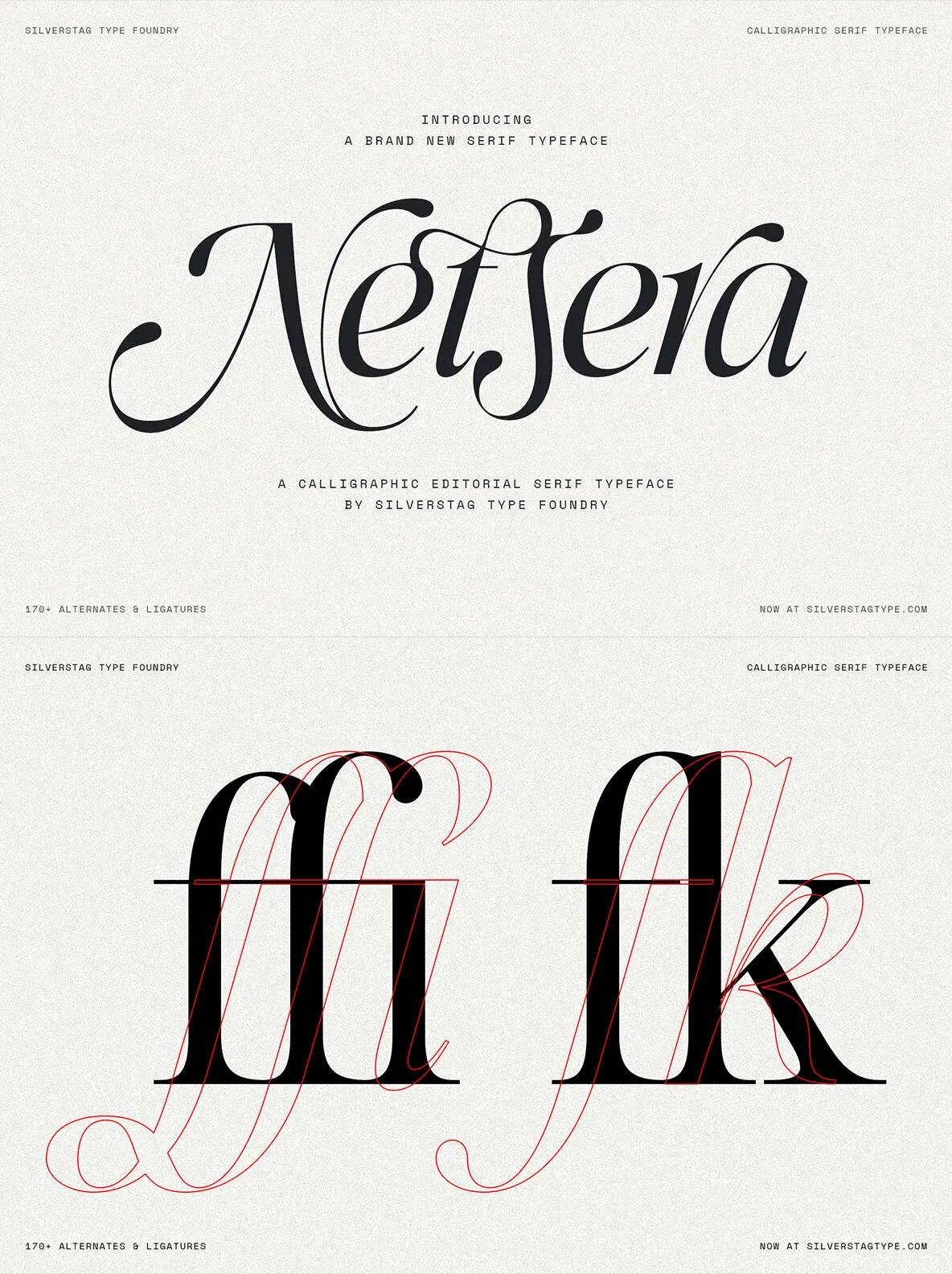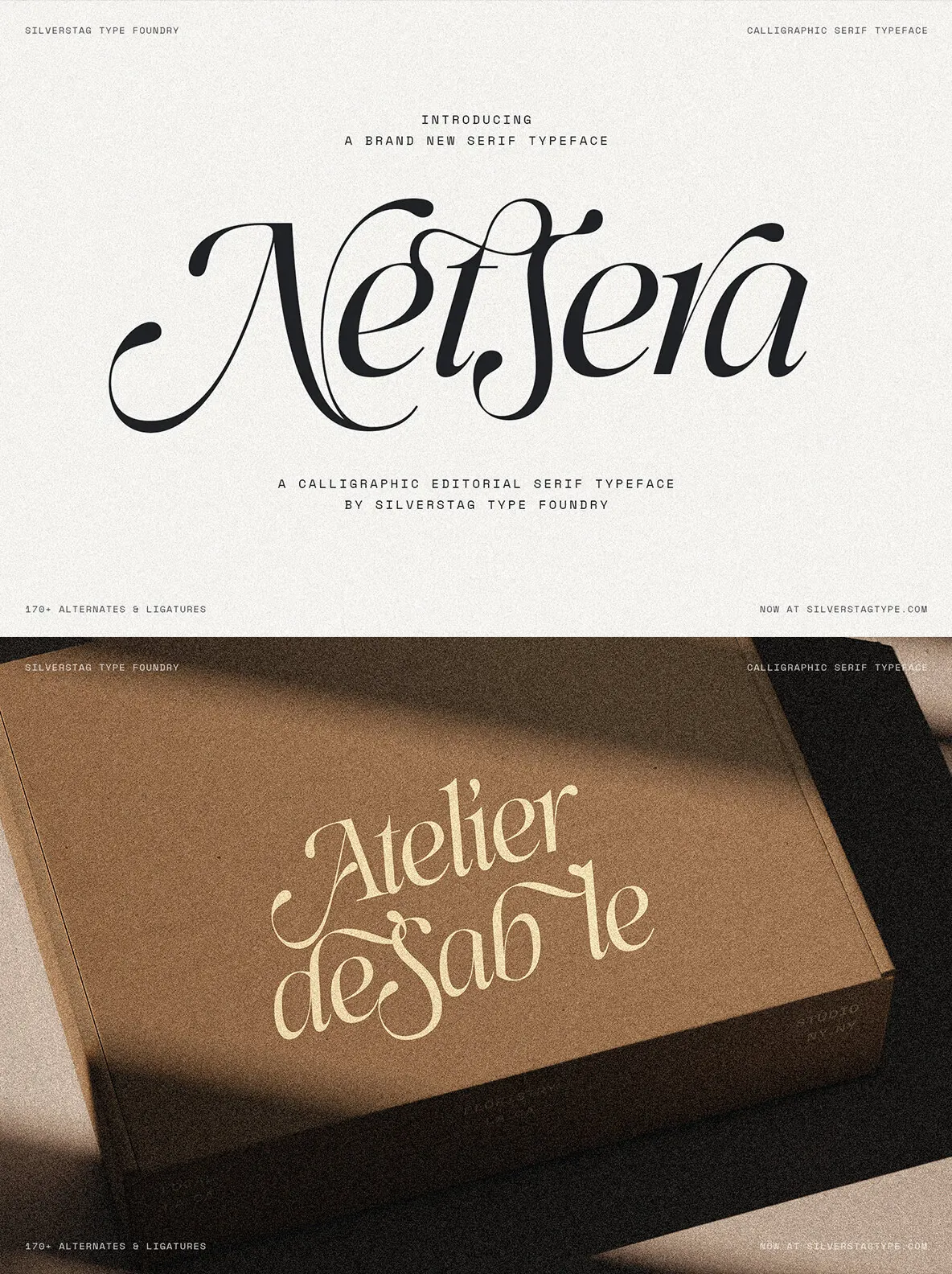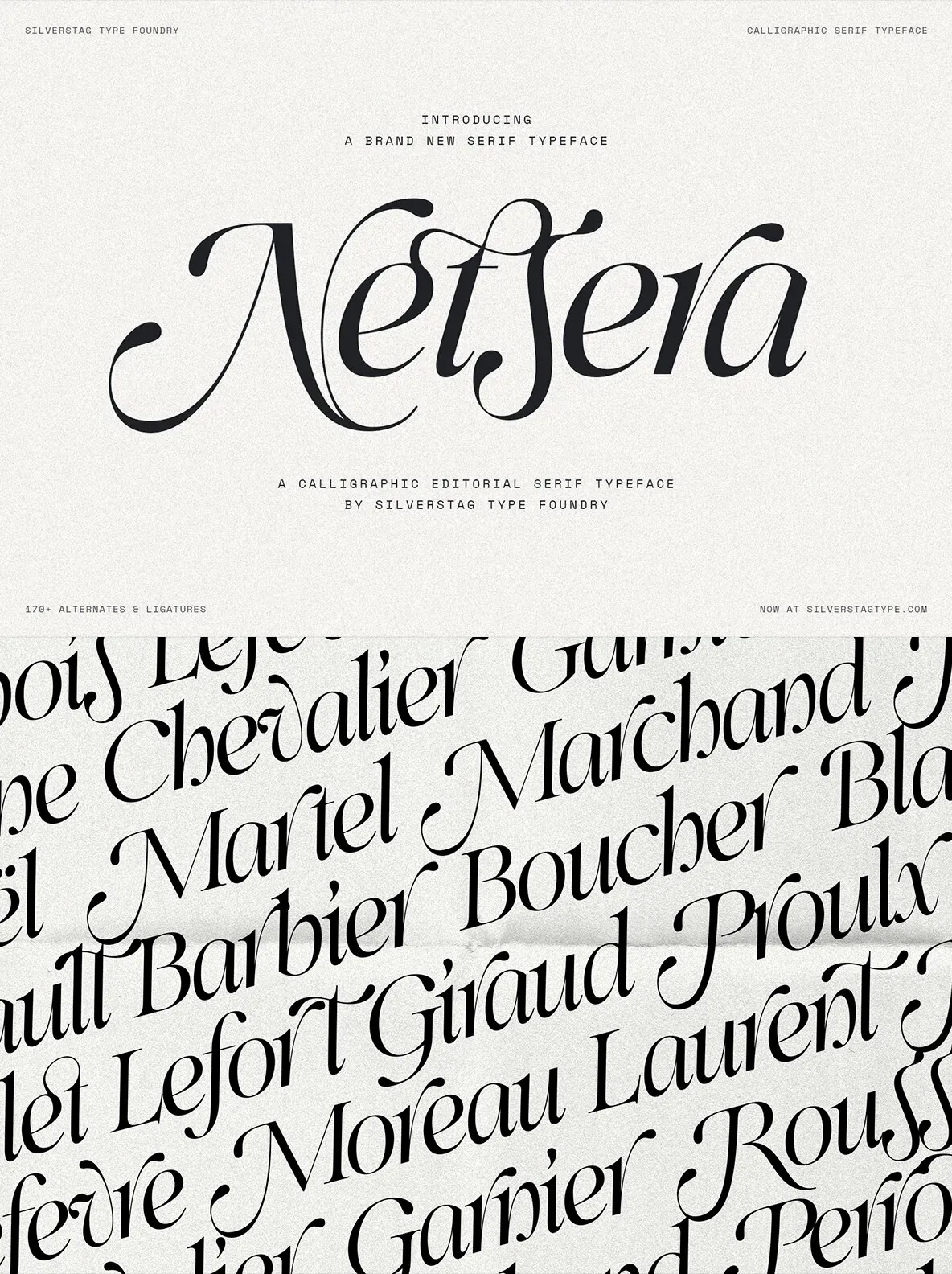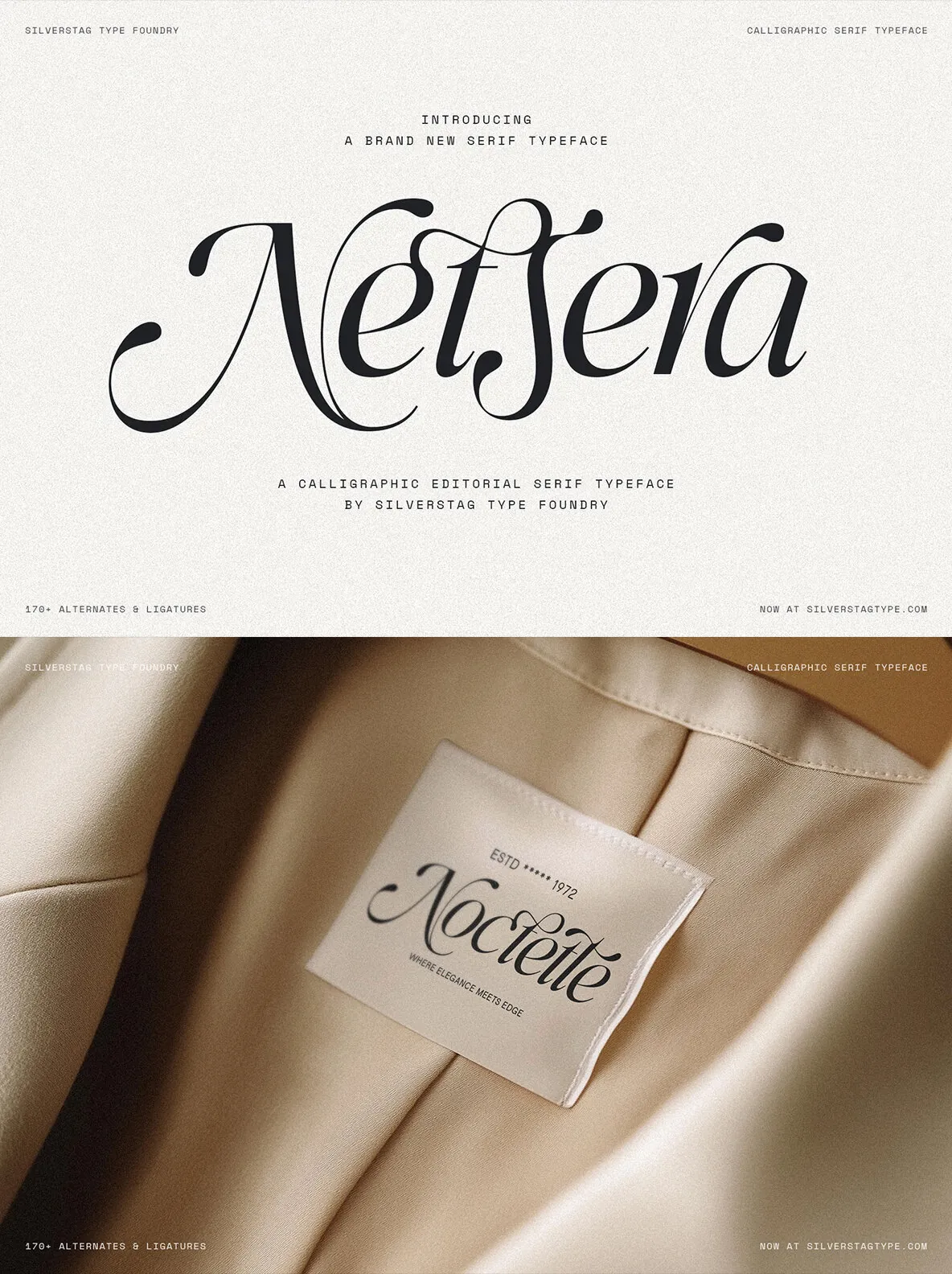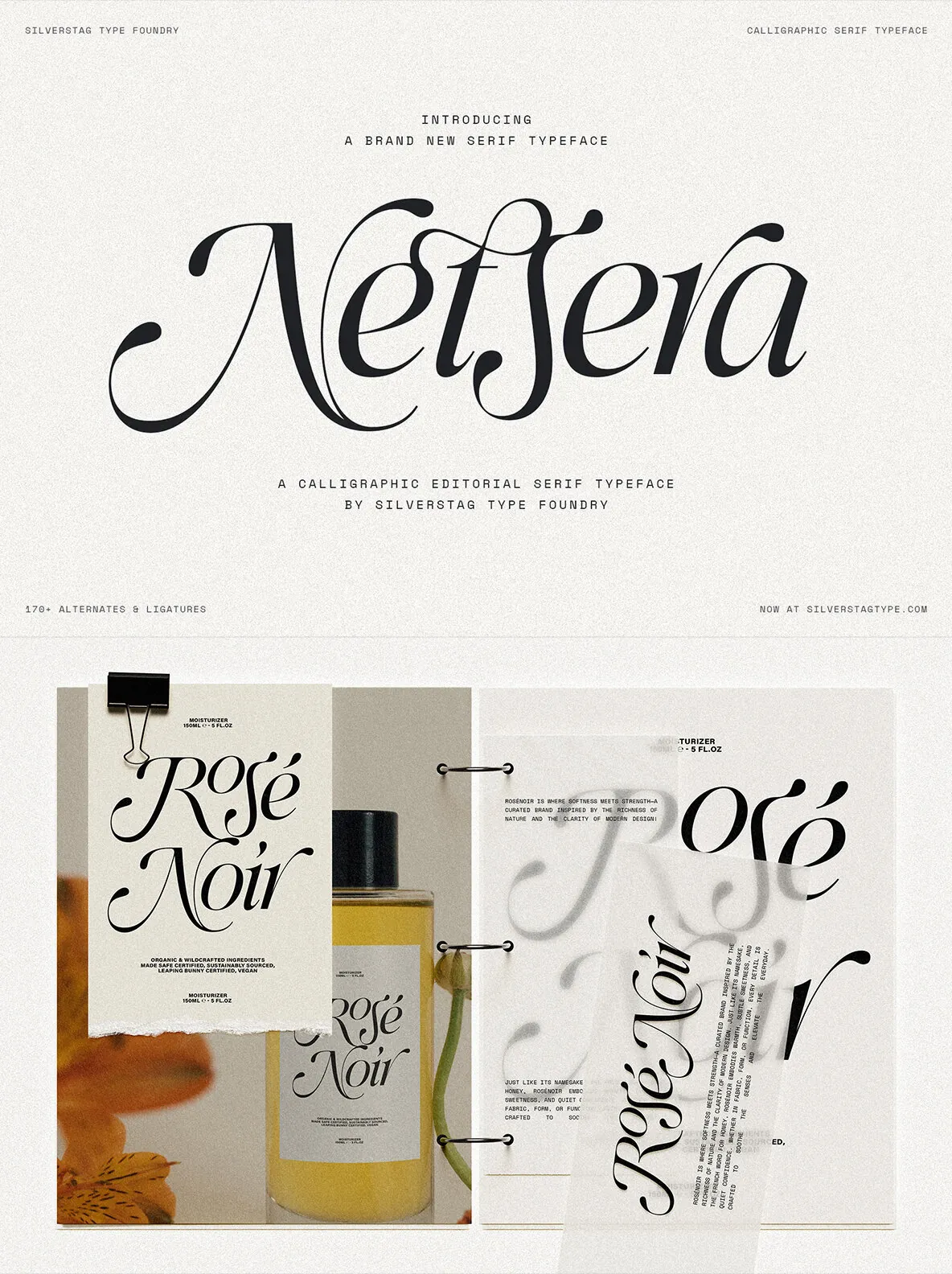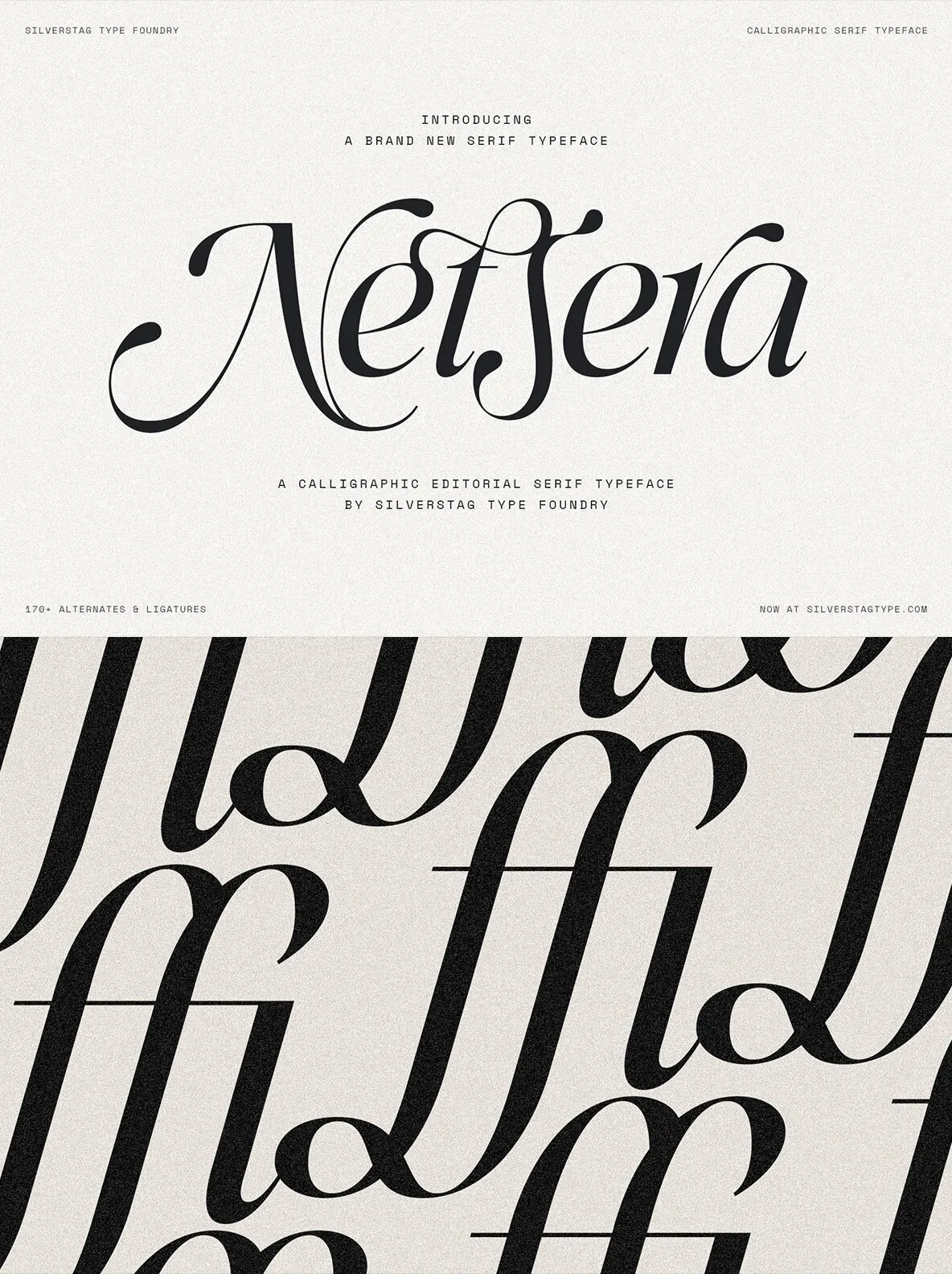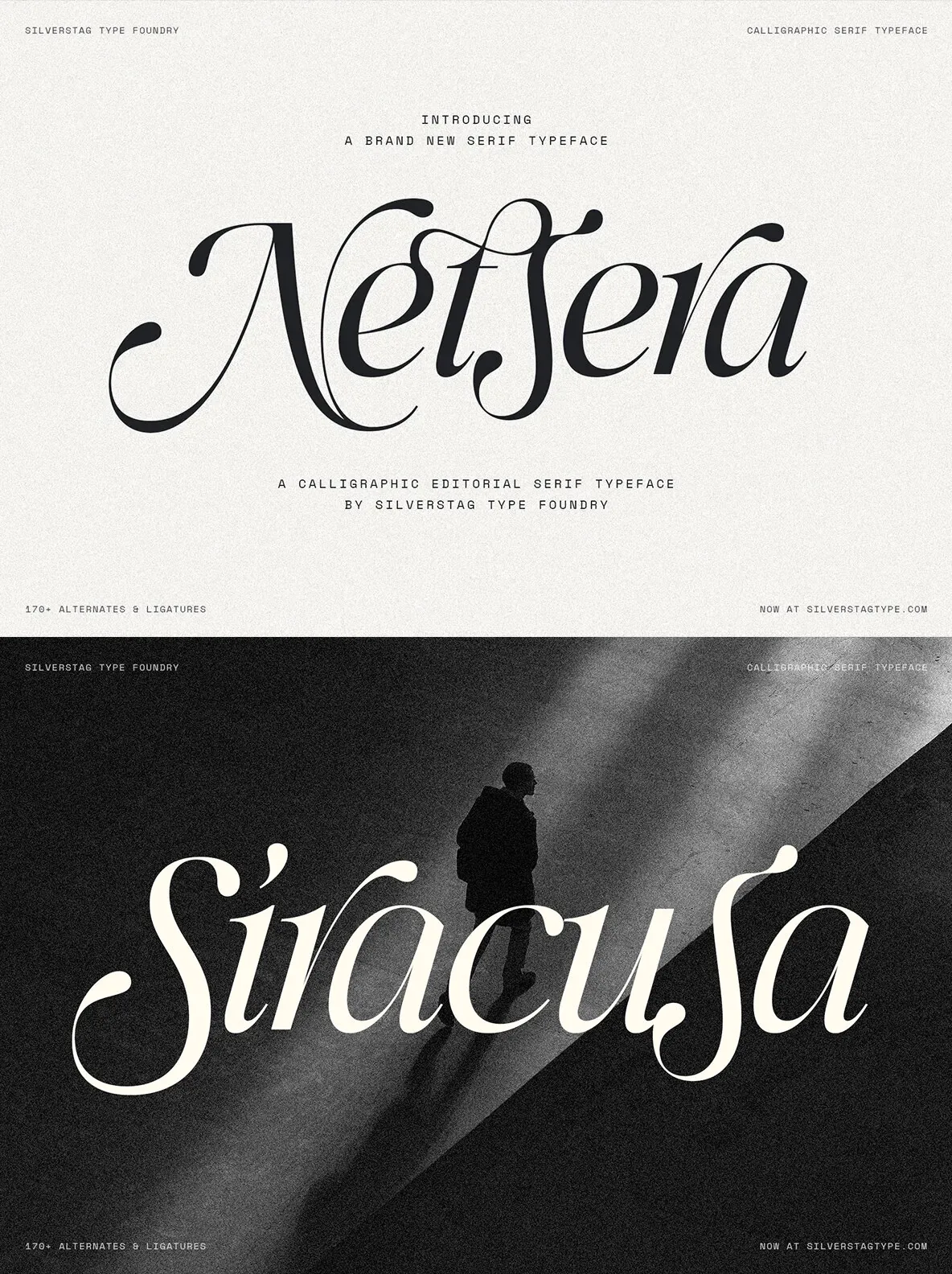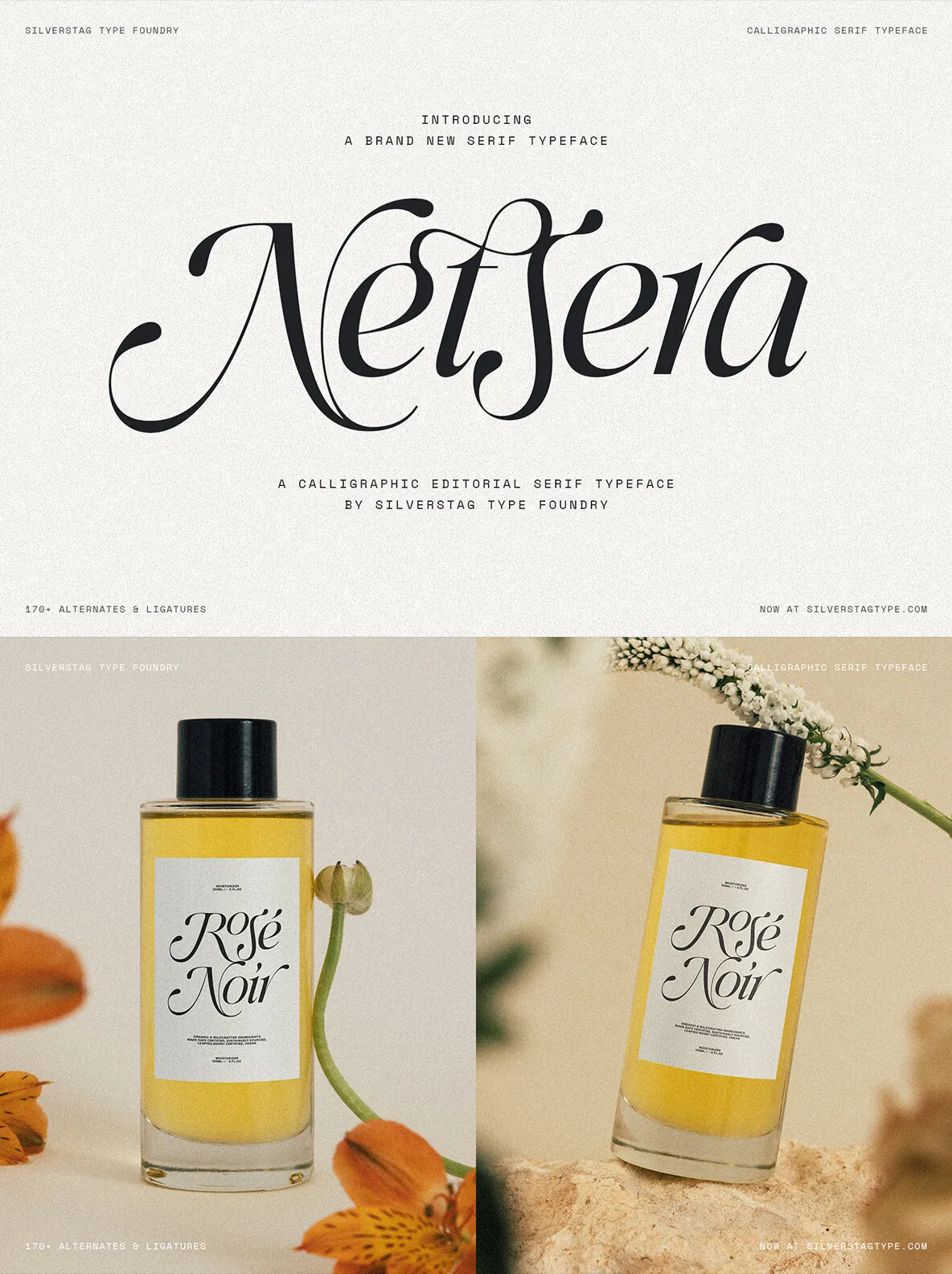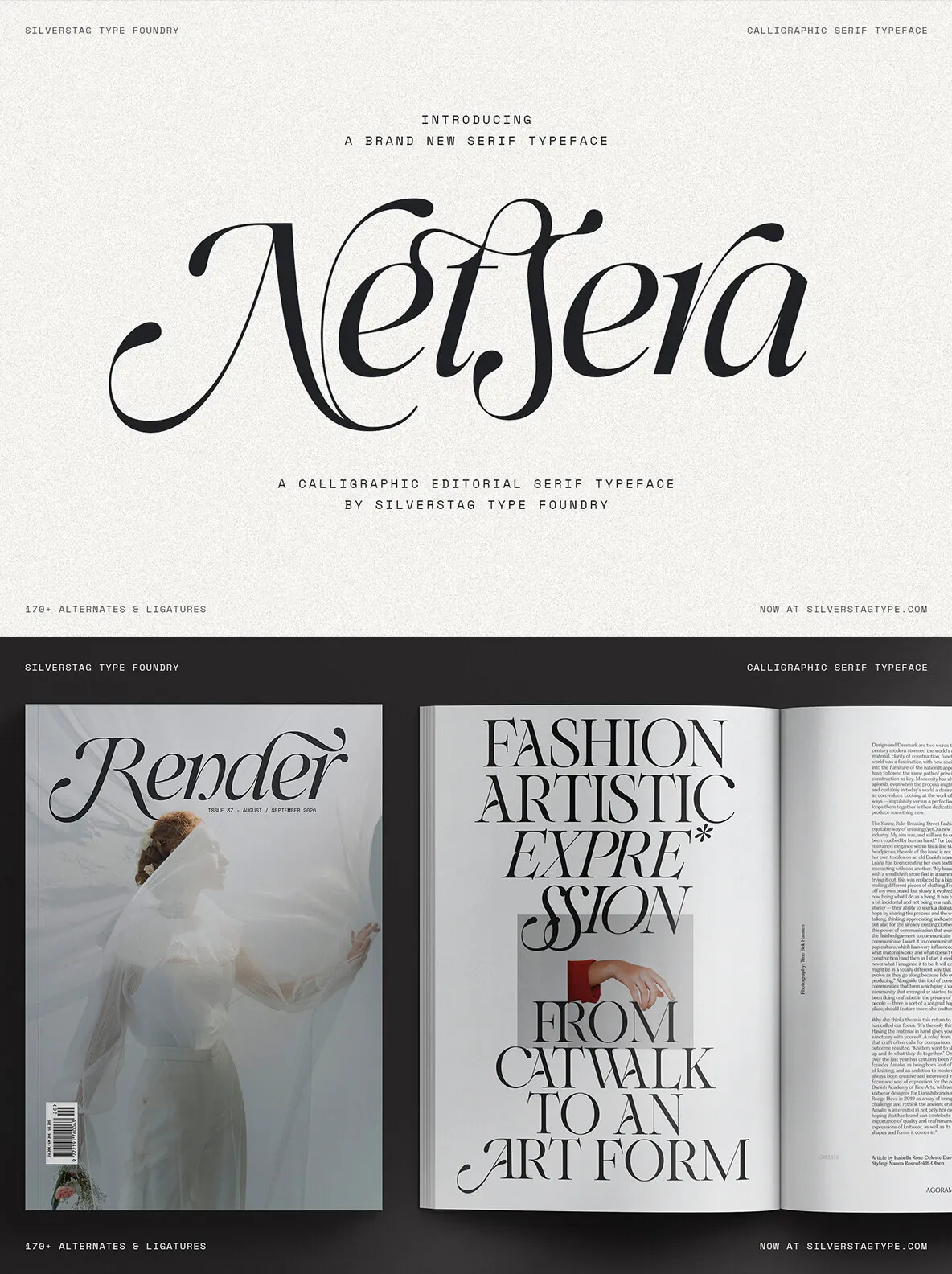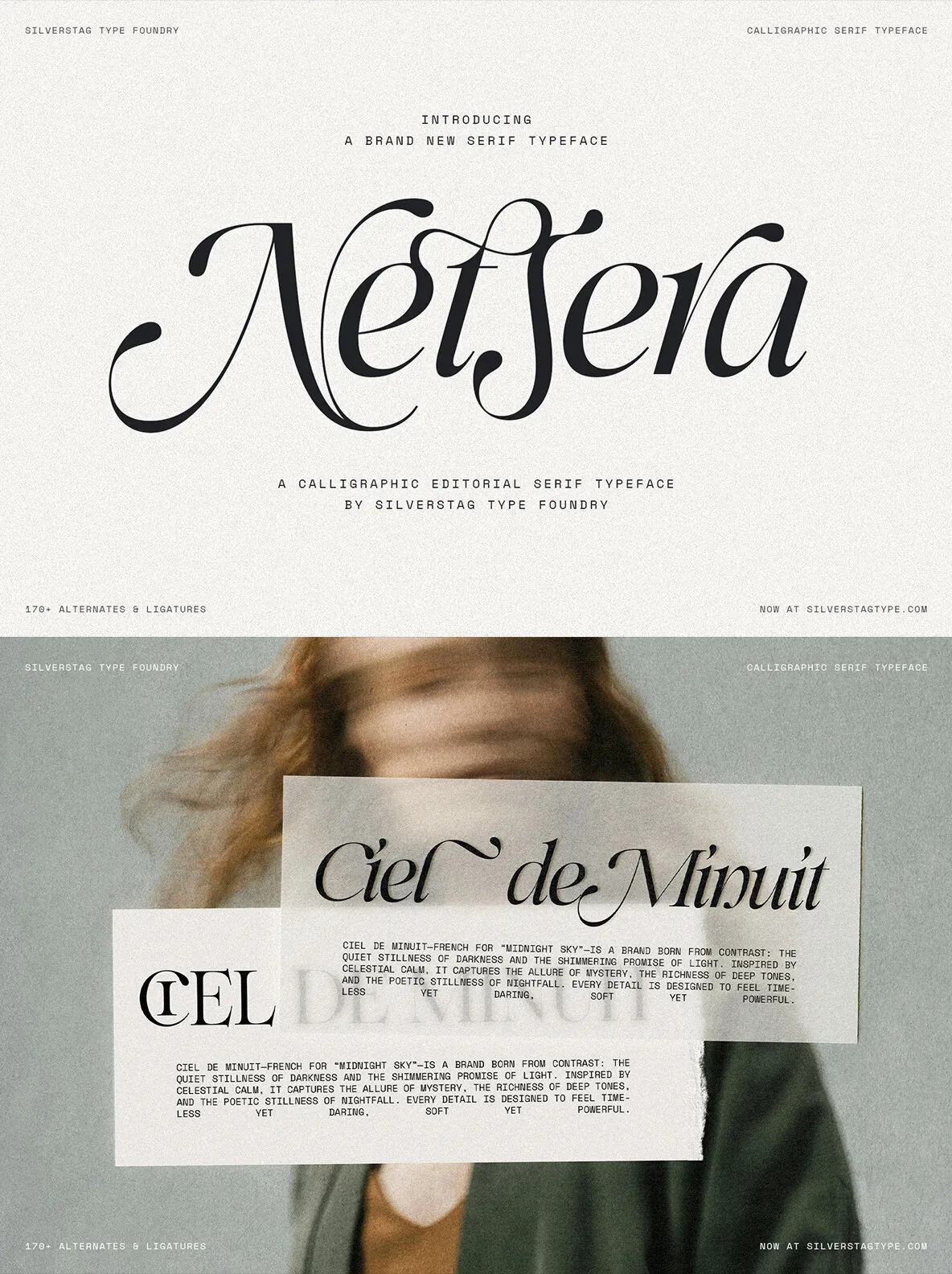
SLTF Netsera — Italian Flair, Modern Grace
SLTF Netsera is a serif font that blends classical grace with contemporary style. With over 900 characters and more than 170 meticulously fashioned ligatures and alternates, it gives designers a deep typographic range for everything from editorial layouts to fashion packaging. The calligraphic influence reads clearly at text sizes, while its refined details hold up in display work where nuance matters.
Available in both Regular and Italic styles, SLTF Netsera balances sweeping strokes with careful structure. Use it when a project needs romance without losing control—premium branding, elegant logotypes, and invitations that call for polish. For designers aiming to create striking visual identities, SLTF Netsera supports confident typography with a distinctly Italian sense of pace and form.
Features
Extensive Character Set
– Includes 900+ characters and 170+ alternates.
Multilingual Support
– Covers over 100 languages.
OpenType Features
– Offers full punctuation and numerals.